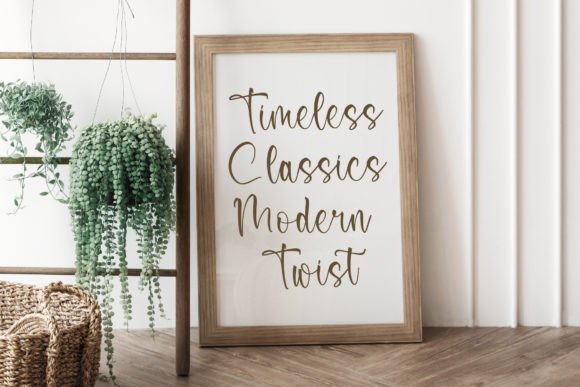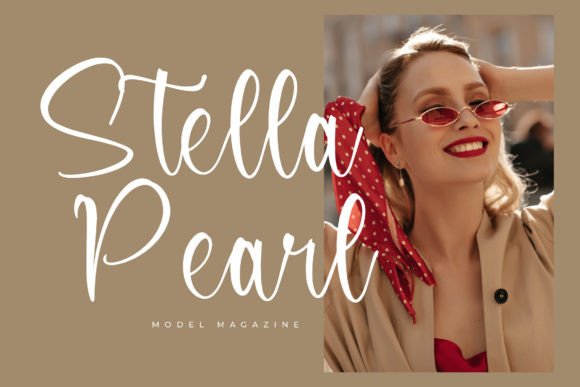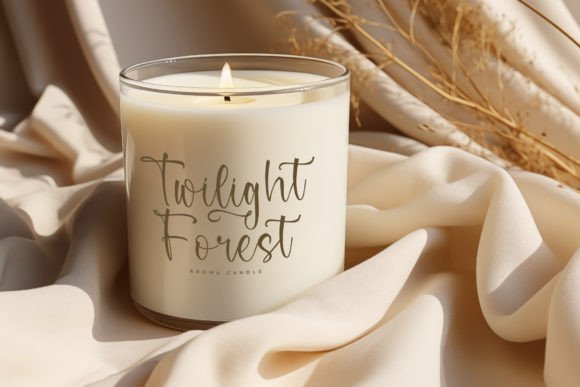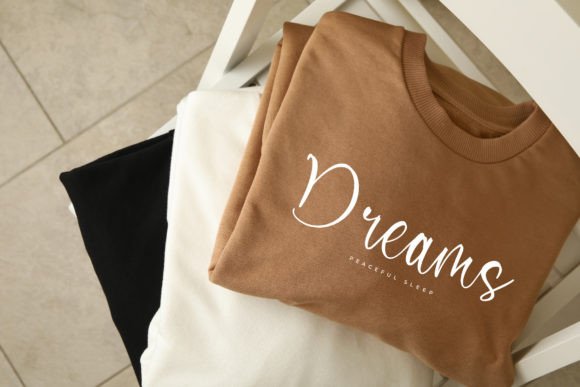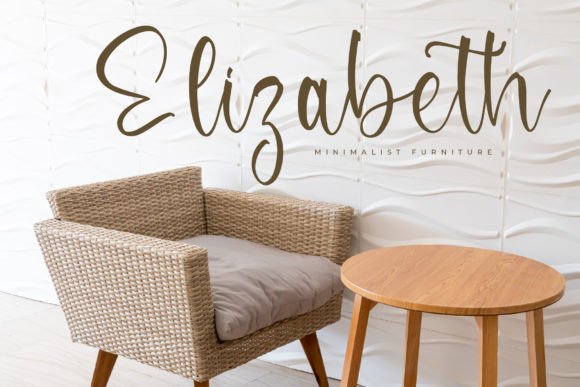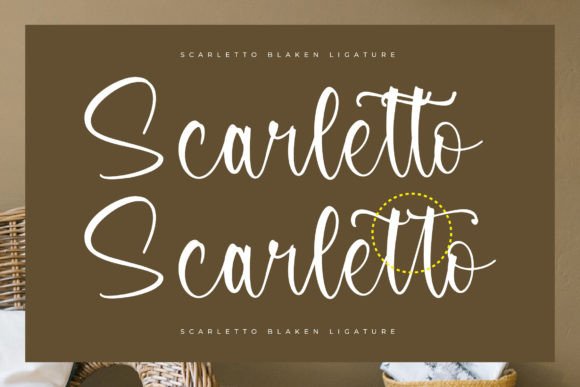
Introduction to Scottmid Blissful Font
As designers, we’ve all been there – staring at a blank canvas, trying to bring a vision to life. The perfect font can make all the difference, elevating a project from ordinary to extraordinary. That’s exactly what the Scottmid Blissful Font does. With its modern, handwritten script, this stunning font is perfect for any creative project that requires a touch of elegance and sophistication.
Developed by Integritype Studio, the Scottmid Blissful Font is a game-changer for designers looking for a high-quality design resource. Its versatility makes it suitable for a wide range of applications, from logos and branding projects to homewares designs, product packaging, and even special events. With its transparent background and free download option, it’s an ideal addition to any designer’s toolkit.
Whether you’re working on a luxury project or simply want to add a premium touch to your designs, the Scottmid Blissful Font is an invaluable resource. Its high-quality design makes it stand out from the crowd, ensuring that your projects exude style and sophistication. In this article, we’ll delve into the world of the Scottmid Blissful Font, exploring its features, benefits, and uses.
Key Features of Scottmid Blissful Font
- Designed with a focus on aesthetics, the Scottmid Blissful Font features a unique blend of modern and elegant elements.
- Includes a range of characters, including uppercase and lowercase letters, numbers, and punctuation marks, making it suitable for various design applications.
Honest Review: Scottmid Blissful Font
As a designer, I’m always on the lookout for high-quality design resources to elevate my creative projects. The Scottmid Blissful Font caught my attention, and I decided to give it a try.
What works well: ✨ The font is incredibly versatile, with a wide range of styles and weights to choose from. It’s perfect for creating eye-catching headings and titles. I also appreciate the transparent background option, which makes it easy to layer and combine with other design elements. The free download was a major plus, as it’s always great to have access to high-quality design resources without breaking the bank.
Overall impression: I’m impressed with the Scottmid Blissful Font, and I think it’s a great addition to any designer’s toolkit. With its high quality and versatility, it’s perfect for creative projects and personal use. However, be aware of the limitations mentioned above before incorporating it into your workflow.
- Wide range of styles and weights
How to Use Scottmid Blissful Font
The Scottmid Blissful Font is a high-quality design resource that can be used in various creative projects. It’s available for free download and offers a transparent background, making it easy to integrate into your designs.
Tips for Getting the Most Out of Scottmid Blissful Font
To get the most out of the Scottmid Blissful Font, use it in combination with other high-quality design resources, such as graphics and images. Experiment with different font sizes and styles to create visually appealing designs.